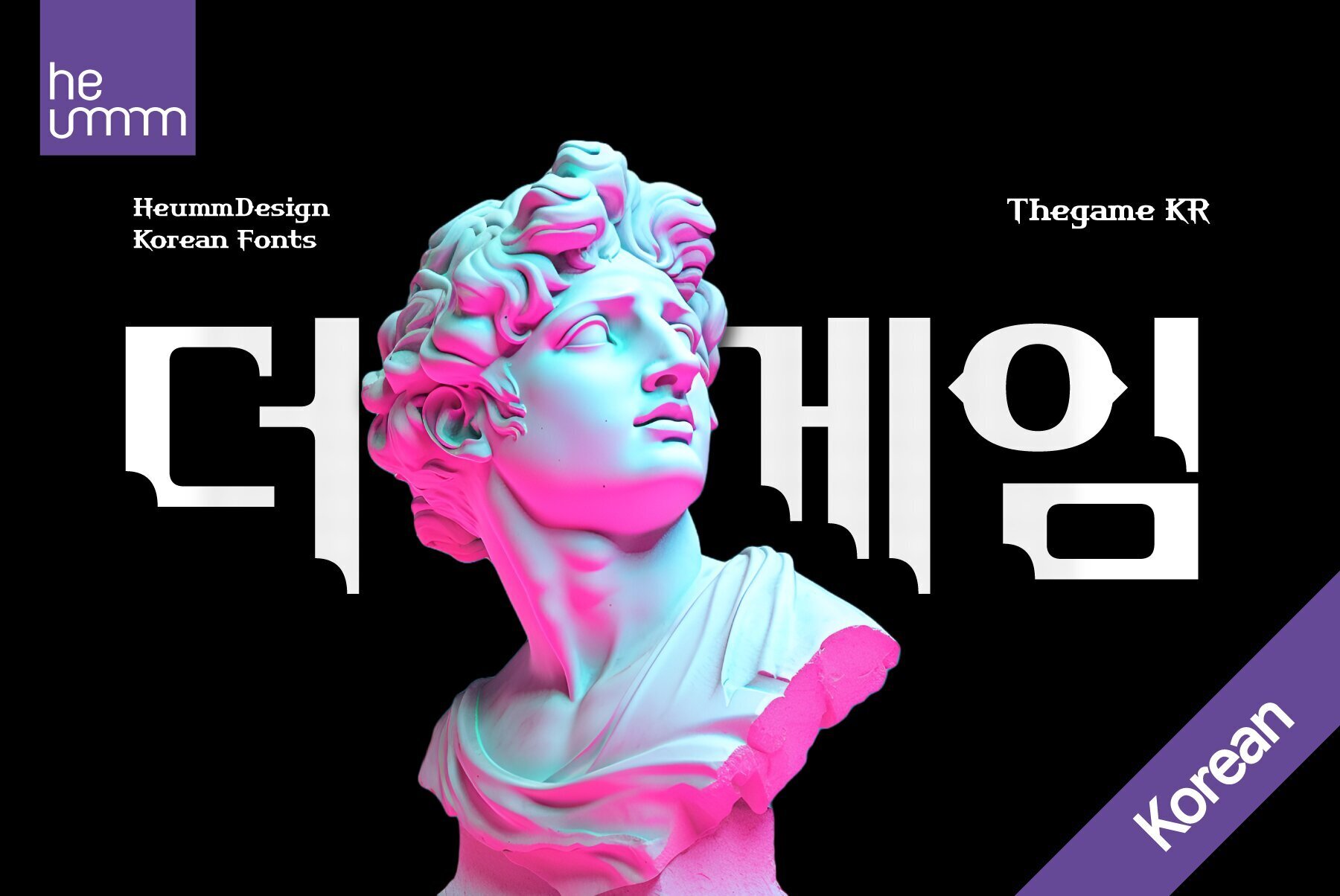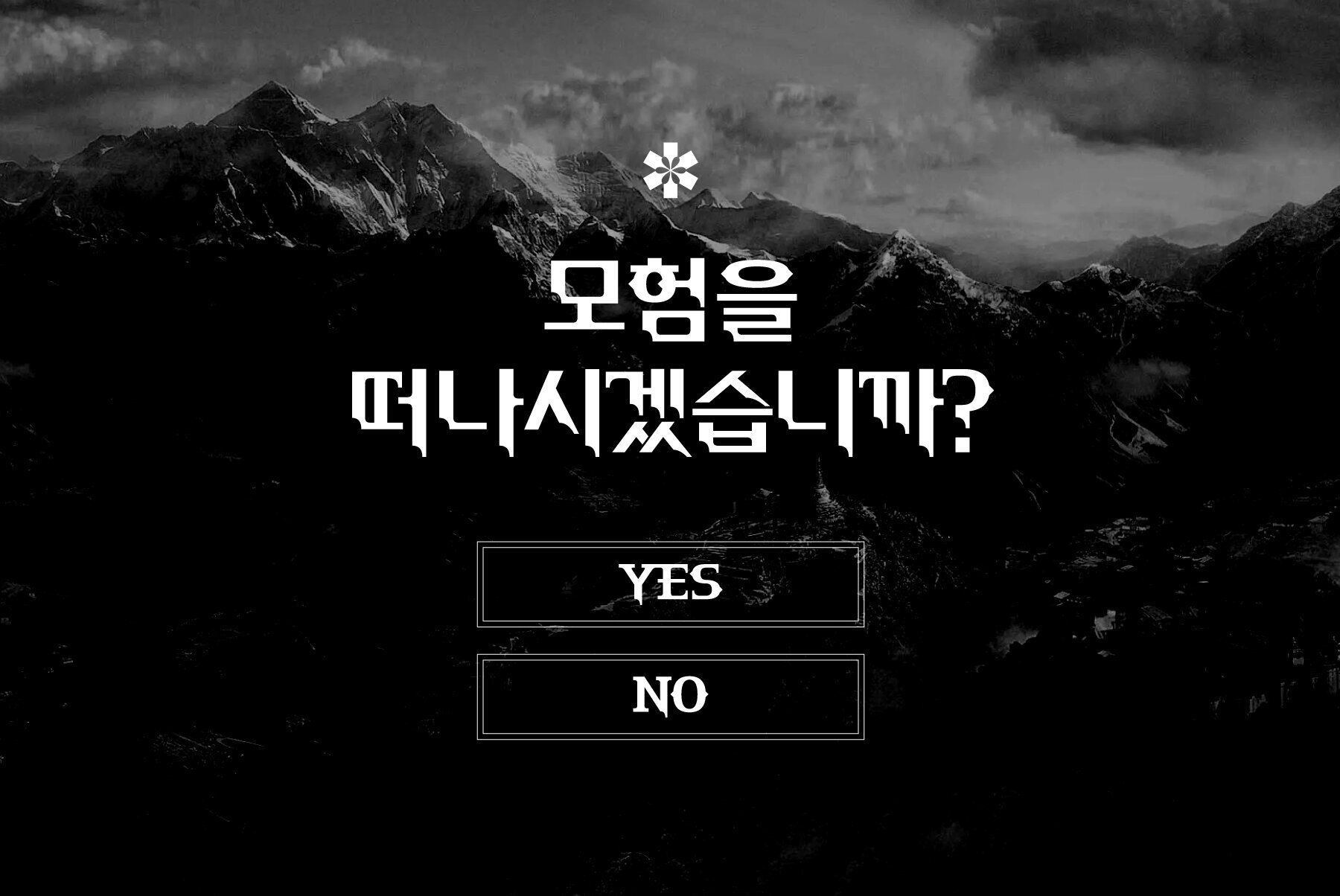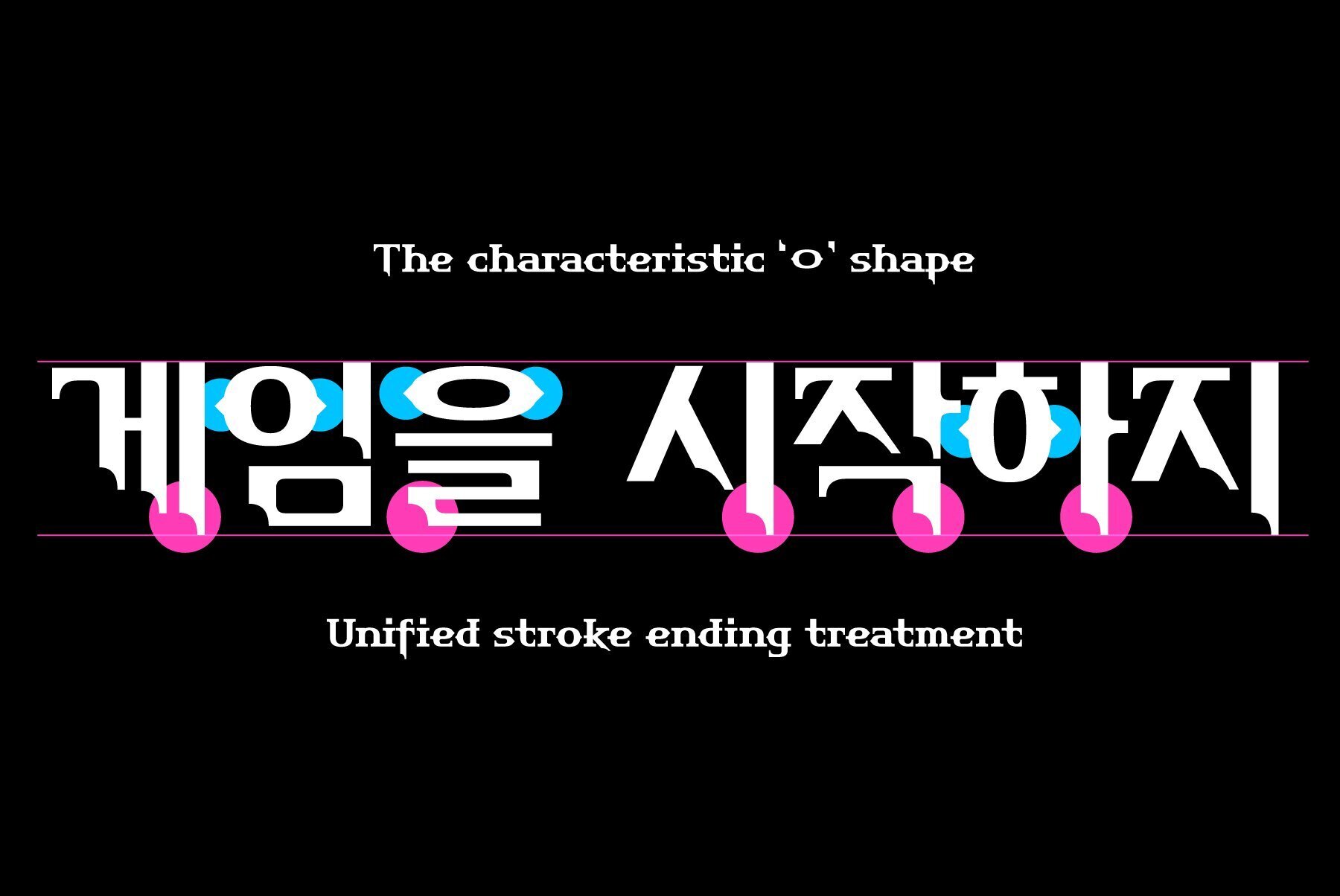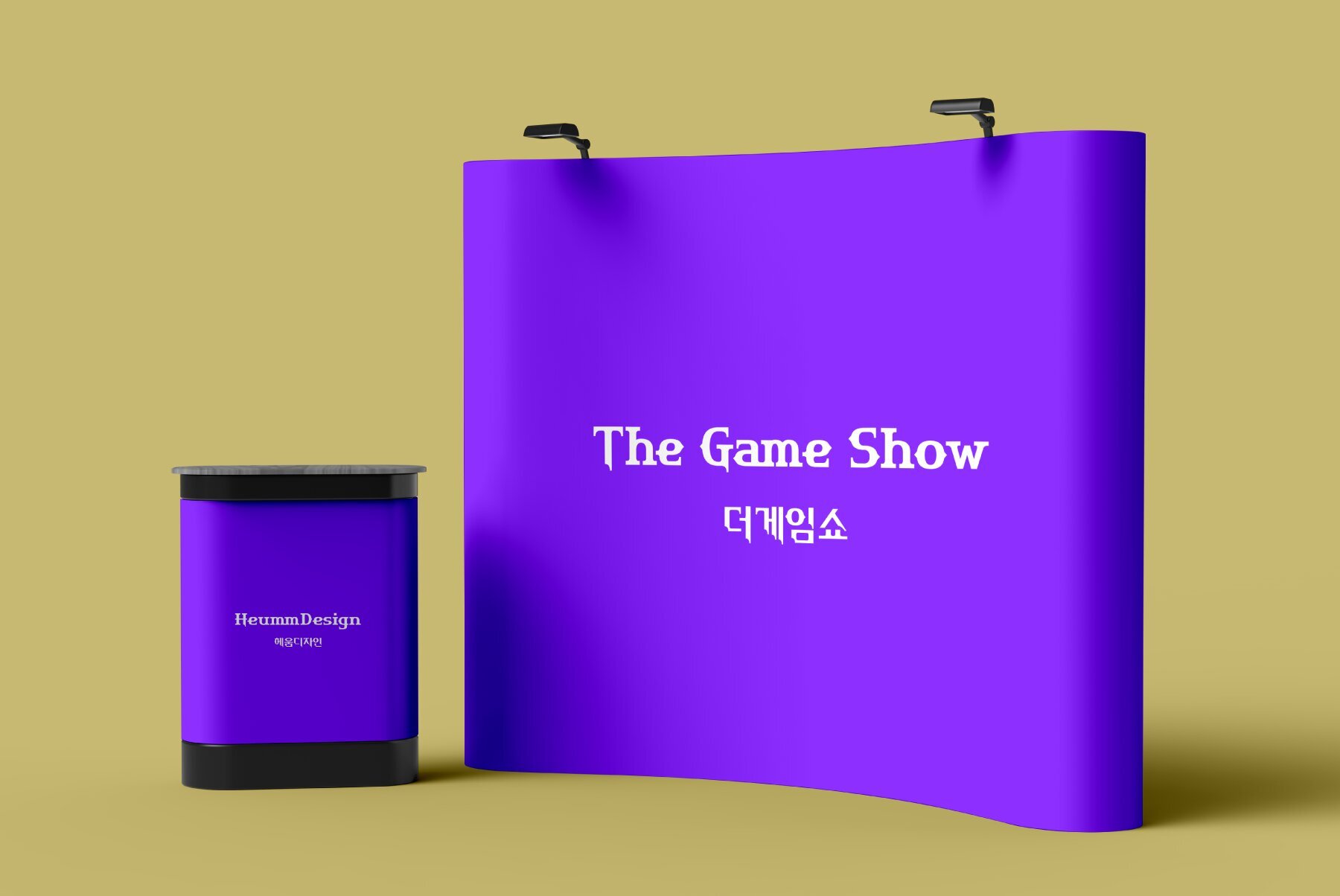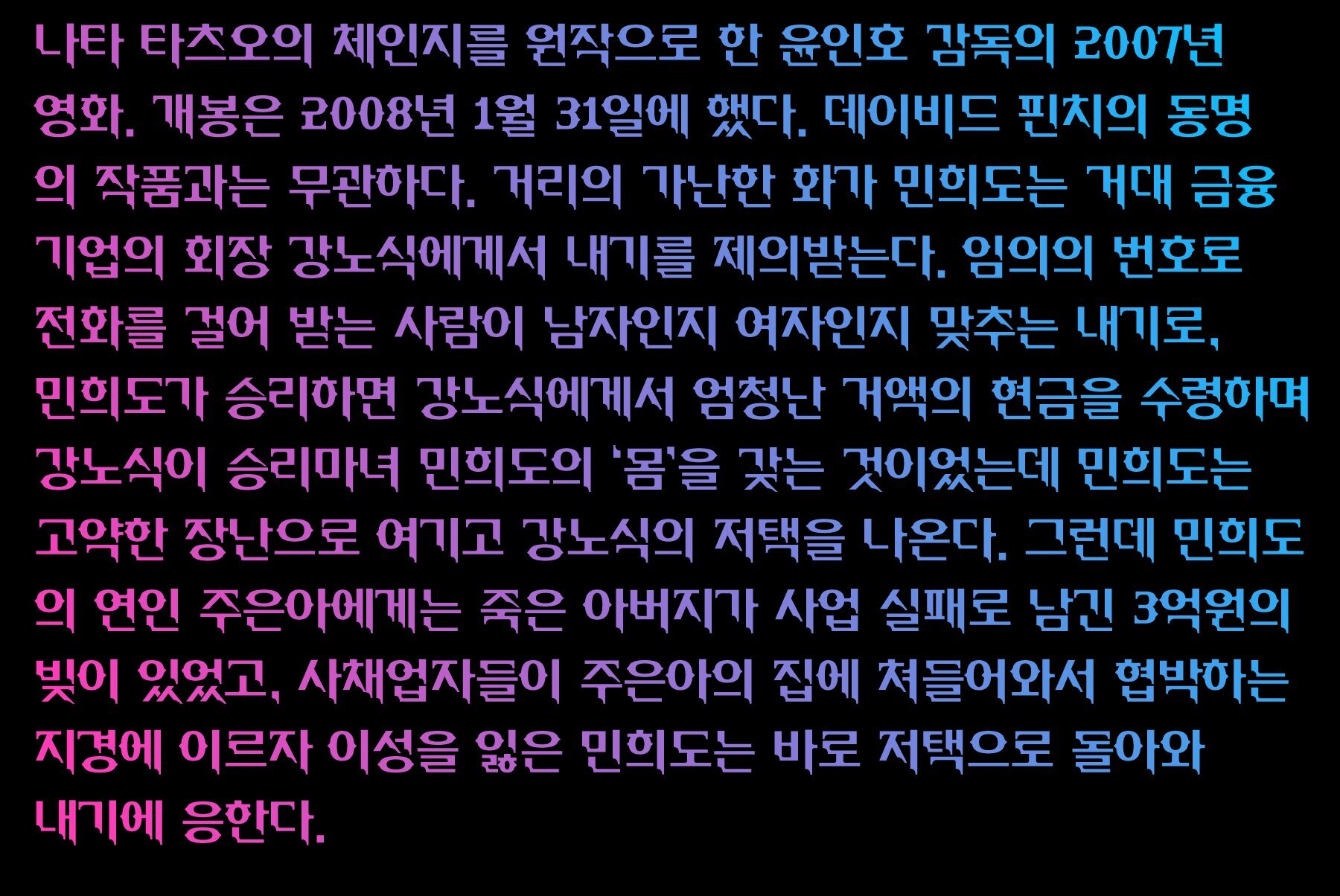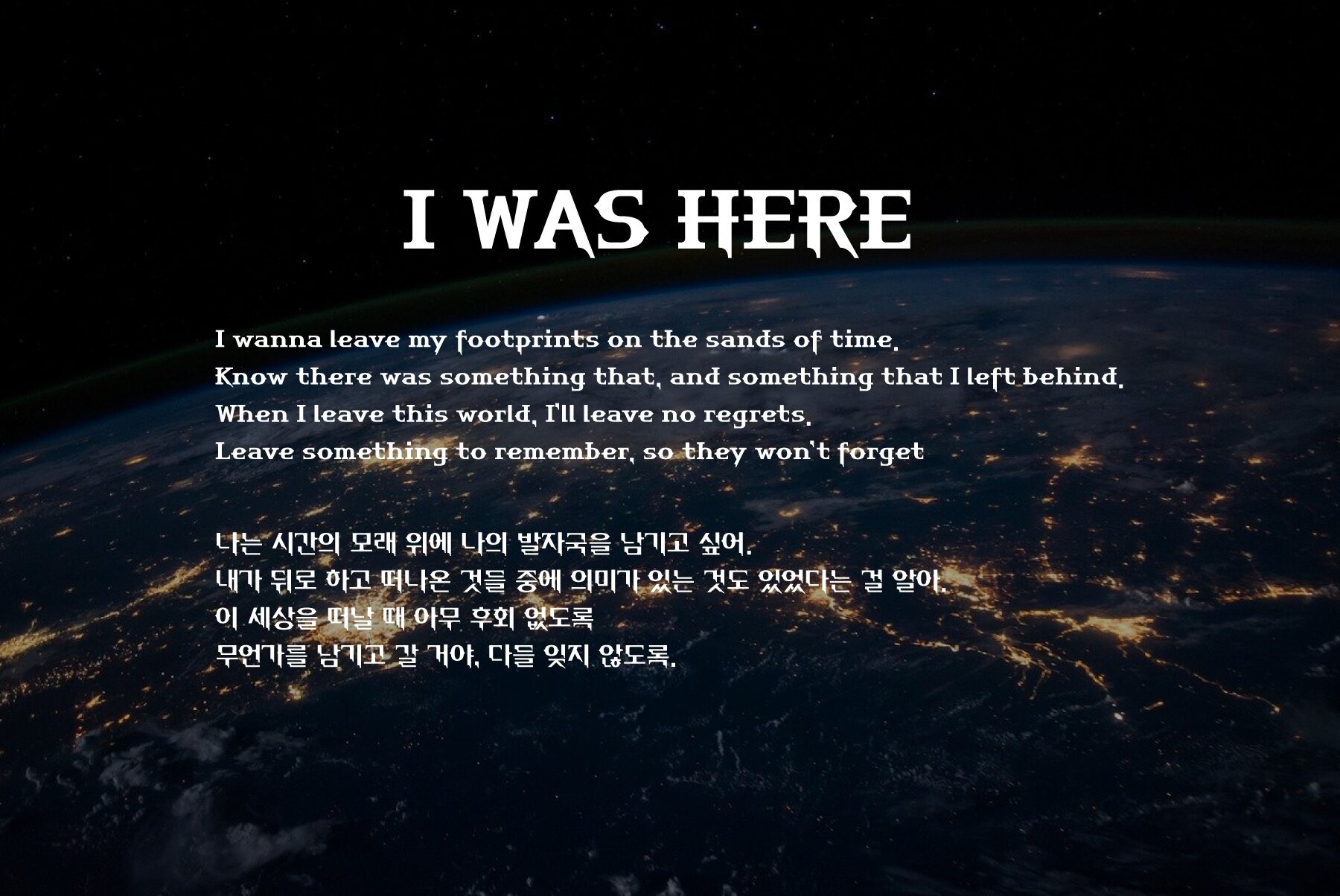
'HU Thegame KR' was created with a game as a motif, and is a characteristic font with sharp and strong elements. The finishing of the same strokes gives the font a sense of unity and makes it look sharper and colder. This font is suitable for use as a headline. It contains Hangul, Korean.